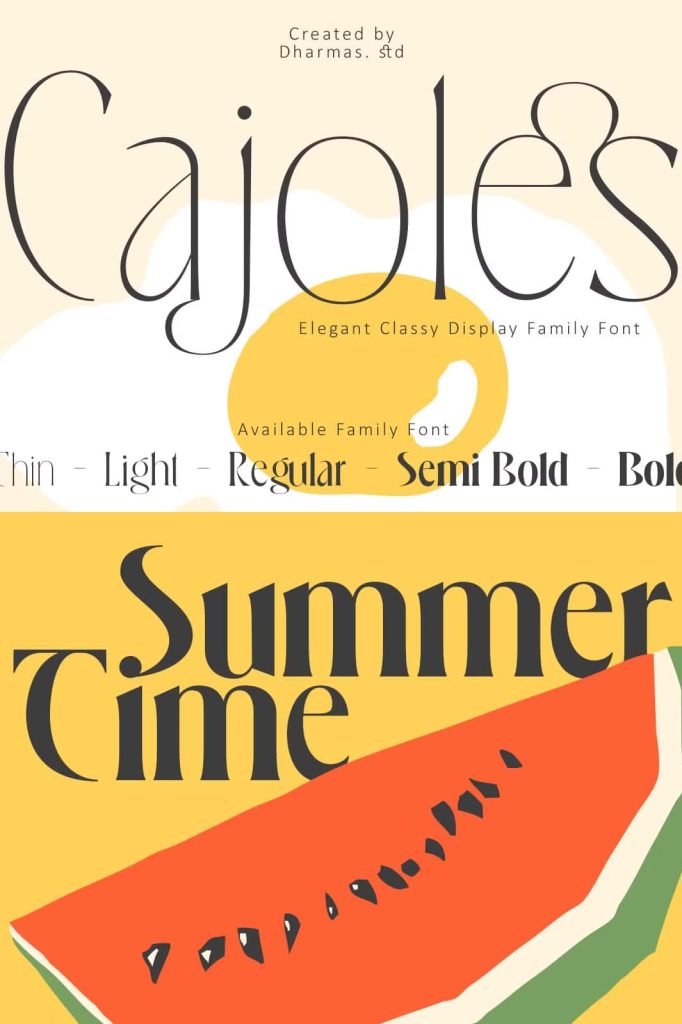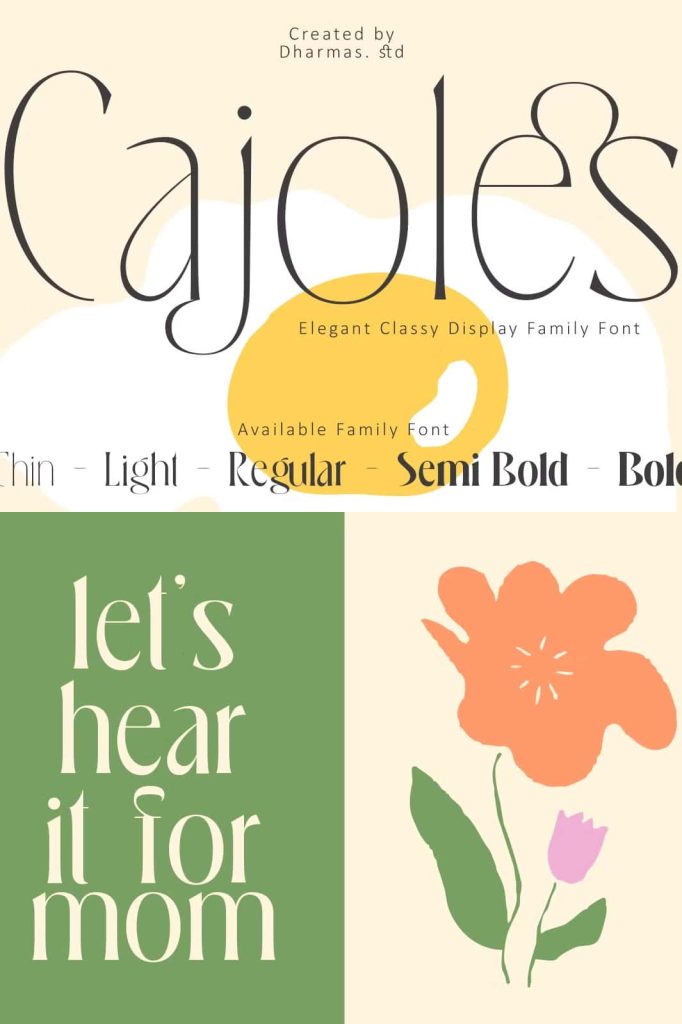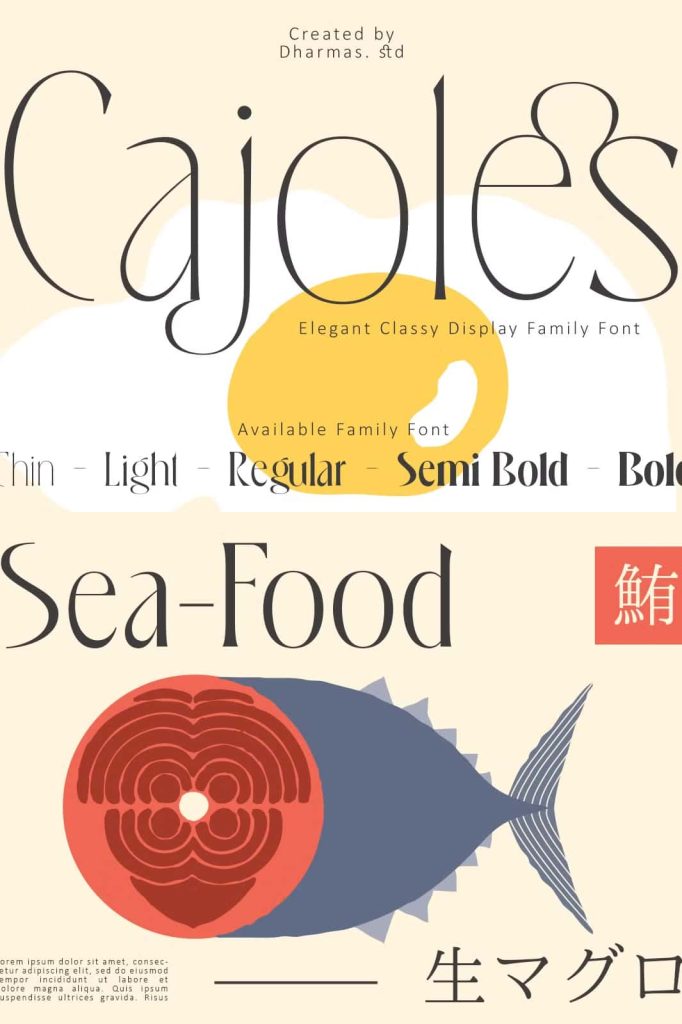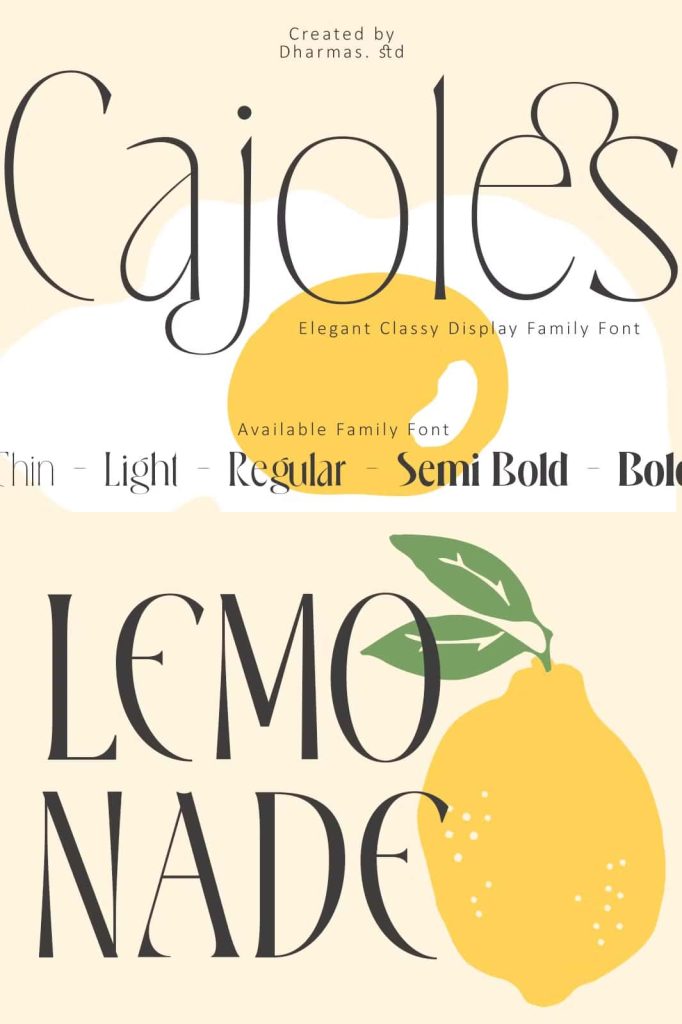
Cajoles – Where Art Nouveau Meets Modern Elegance
Cajoles captures the refined beauty and charm of early twentieth-century Italian design. Inspired by the sophistication of 1910s lake posters, this typeface blends the ornamental allure of Art Nouveau with the clean precision of modern typography. Cajoles reflects a harmony between eccentricity and delicacy, creating a timeless balance that feels both nostalgic and contemporary. Each curve and flourish carries a sense of poetic grace, turning every composition into a piece of living art.
A Typeface Inspired by Italian Sophistication
The foundation of Cajoles lies in the visual romance of vintage Italian advertising and poster art. During the early 1900s, the Italian lakes were celebrated through elegant posters that emphasized natural beauty, luxury, and craftsmanship. Cajoles draws directly from that spirit, transforming it into a typeface that captures the essence of heritage and artistry. Its refined structure and organic flow embody a sense of cultured confidence — perfect for projects that value both beauty and sophistication.
Blending Classic Art Nouveau with Modern Simplicity
Cajoles stands out by bridging two artistic worlds: the fluid elegance of Art Nouveau and the clarity of modern design. Its letterforms feature gentle curves, subtle ornaments, and graceful proportions that bring a soft rhythm to your typography. Yet, beneath its decorative appeal lies a modern sensibility that ensures clarity and balance. This makes Cajoles ideal for contemporary branding, editorial design, packaging, and luxury identity projects that call for artistic distinction without losing readability.
A Perfect Balance Between Eccentricity and Delicacy
Much like a garden in full bloom, Cajoles embodies an expressive vitality that is both structured and free-spirited. The typeface captures the moment where precision meets creativity — where each stroke dances effortlessly between refinement and individuality. This dynamic contrast makes Cajoles incredibly versatile. It can enhance delicate invitations, fashion labels, lifestyle magazines, or artistic posters, giving them a sense of depth and character that feels alive.
Elevate Your Design with Emotional Expression
Typography is more than a visual element; it’s an emotional language. Cajoles speaks that language fluently. Its unique design evokes nostalgia, charm, and confidence, allowing your message to connect on a deeper level. Whether used for headlines, logotypes, or display text, Cajoles adds a sophisticated tone that elevates your visual storytelling. Every letter feels hand-crafted, as if drawn by an artist who understands the harmony between structure and emotion.
Why Designers Choose Cajoles
- Distinctive character: Inspired by 1910s Italian design and Art Nouveau elegance.
- Balanced design: Combines classic artistry with modern refinement.
- Versatile use: Perfect for branding, posters, luxury packaging, and editorials.
- Expressive tone: Infuses visual work with personality, charm, and authenticity.
Bring the Spirit of Art and Nature into Your Work
Choosing Cajoles means embracing a design philosophy rooted in art, nature, and cultural heritage. Its organic forms and detailed craftsmanship mirror the beauty of blooming gardens and timeless architecture. The font invites designers to experiment with contrast — bold yet gentle, classic yet modern, structured yet free. Every word set in Cajoles becomes an artistic expression, a celebration of creativity through form and flow.
Cajoles is more than a typeface; it’s an experience of elegance and imagination. It turns ordinary compositions into sophisticated visual poetry. Let Cajoles transform your designs into timeless works of art that speak with grace, confidence, and style — a perfect harmony of past inspiration and present innovation.